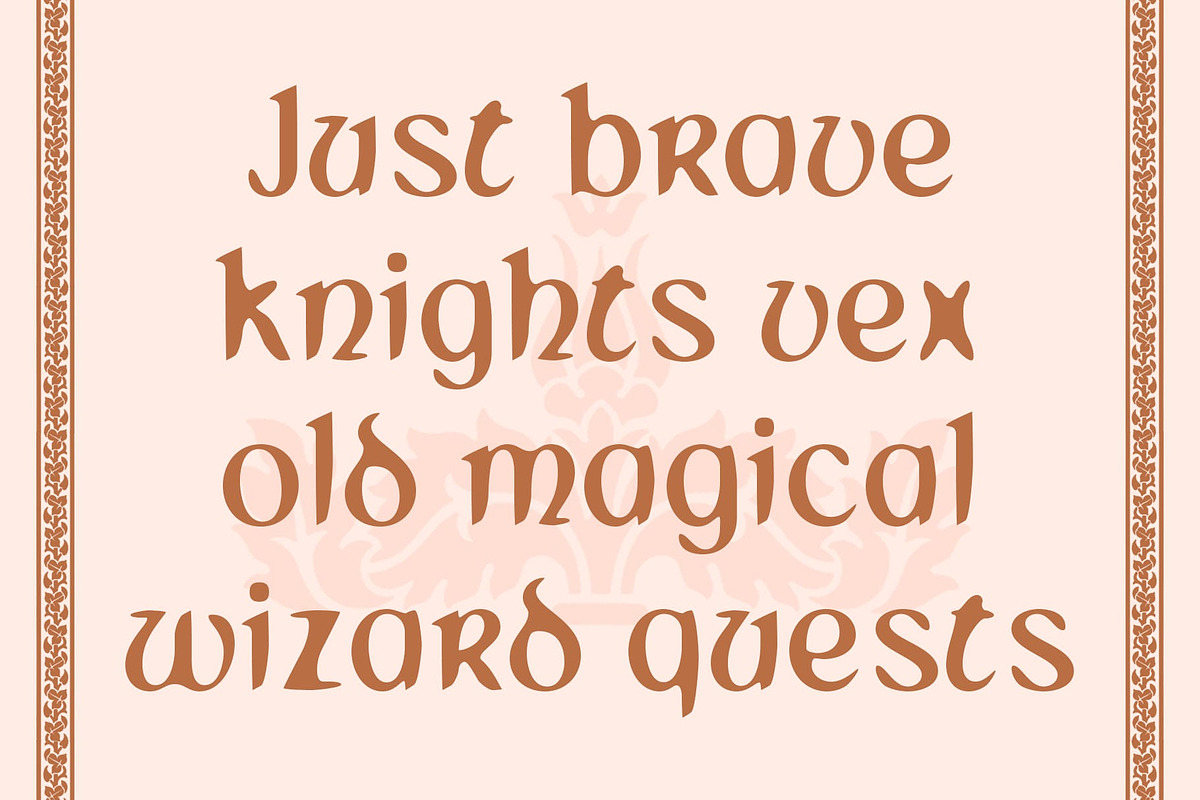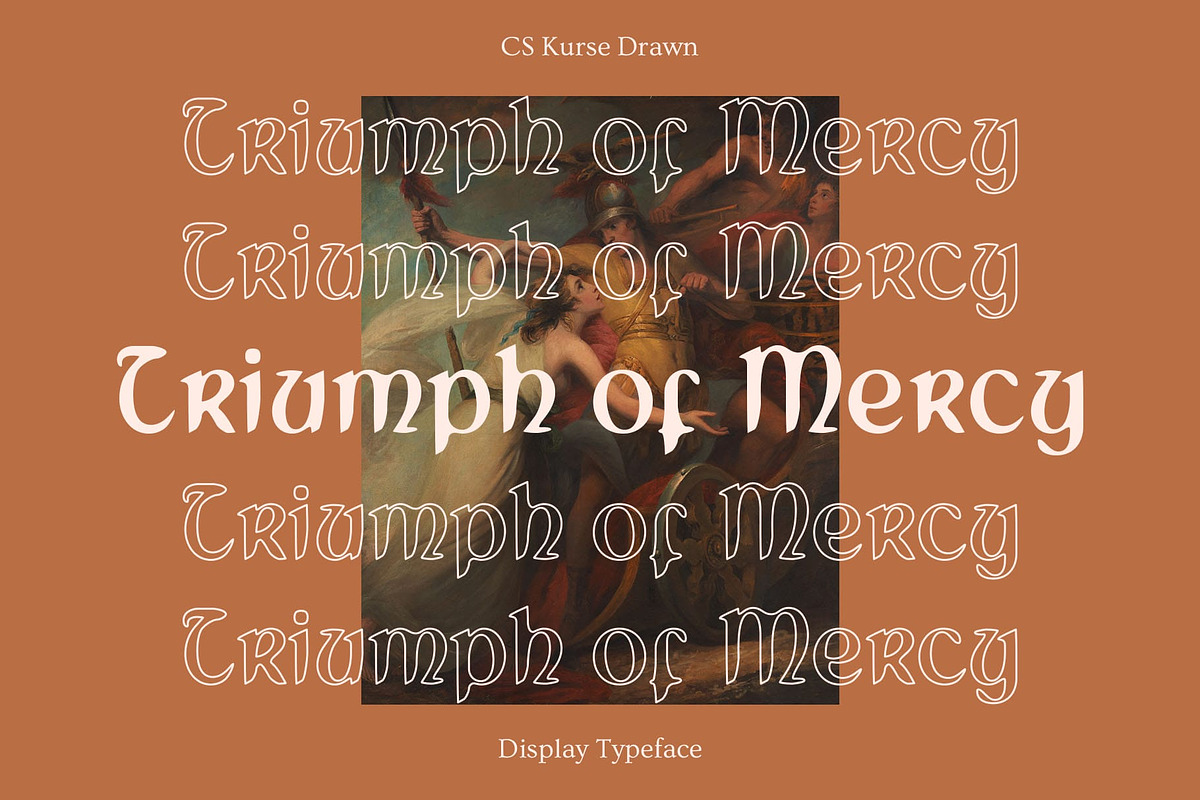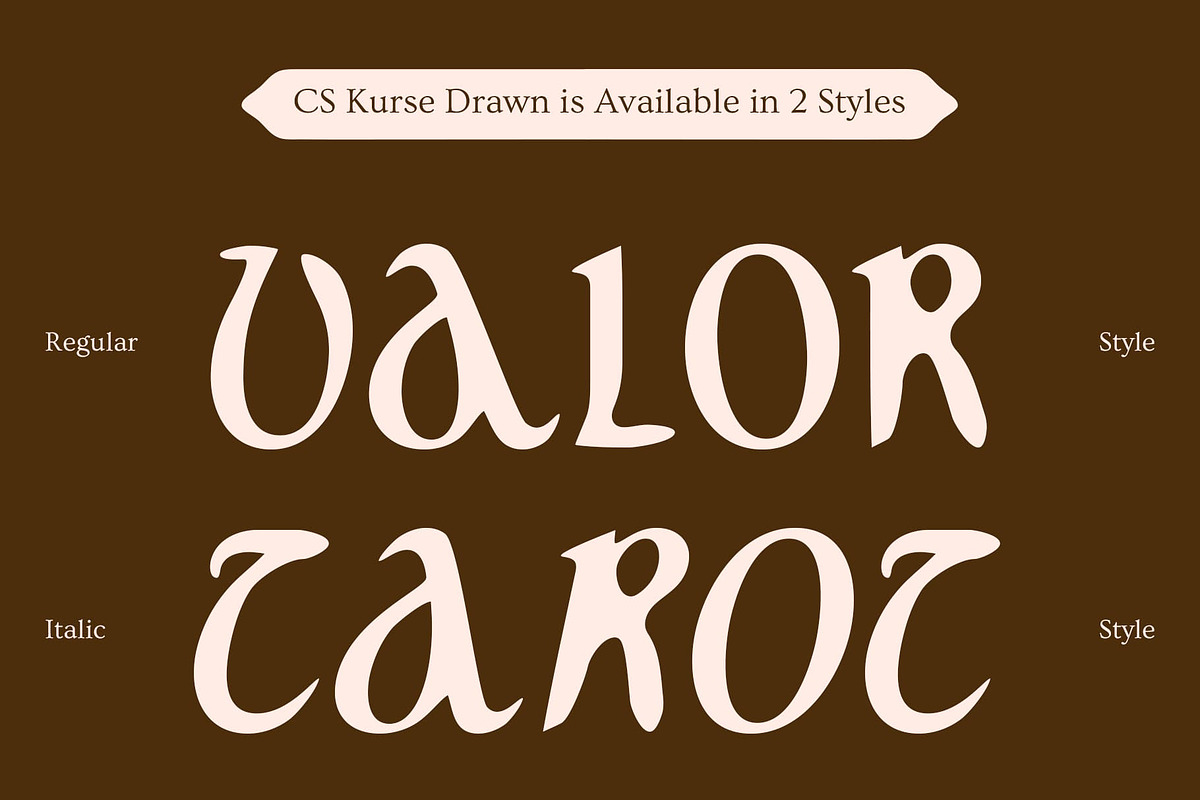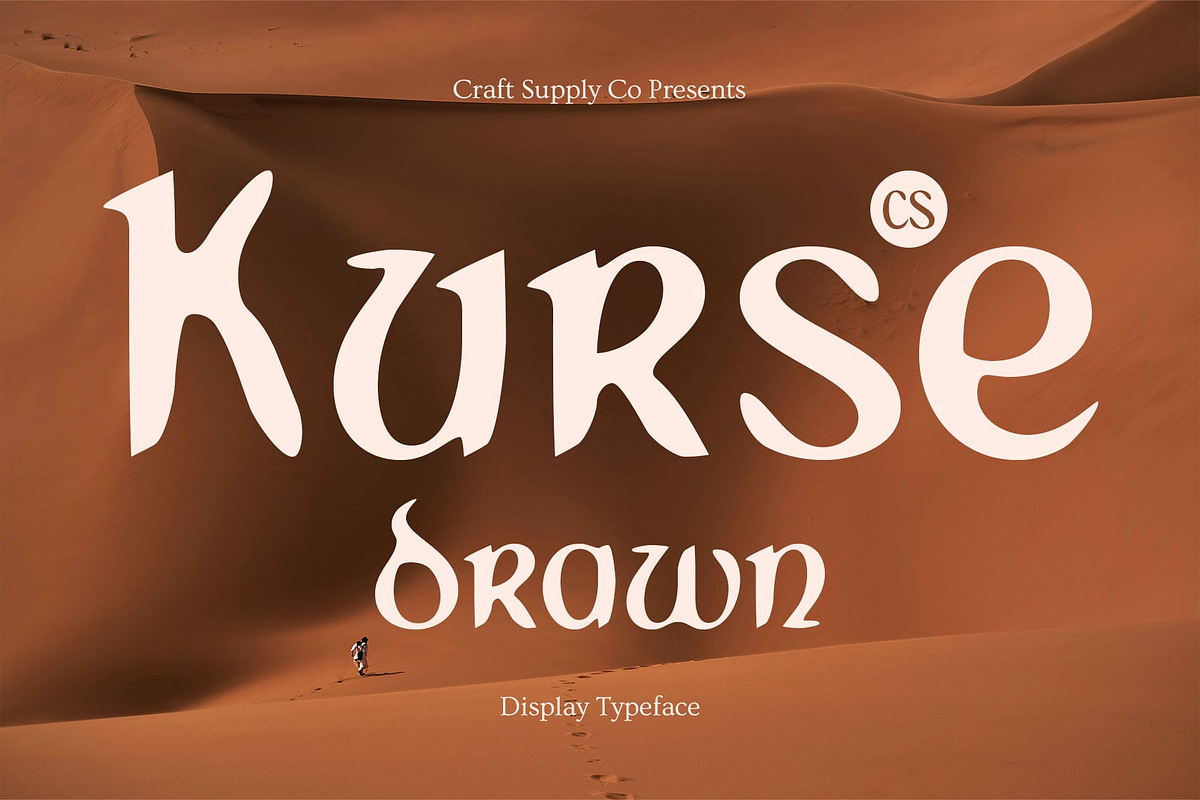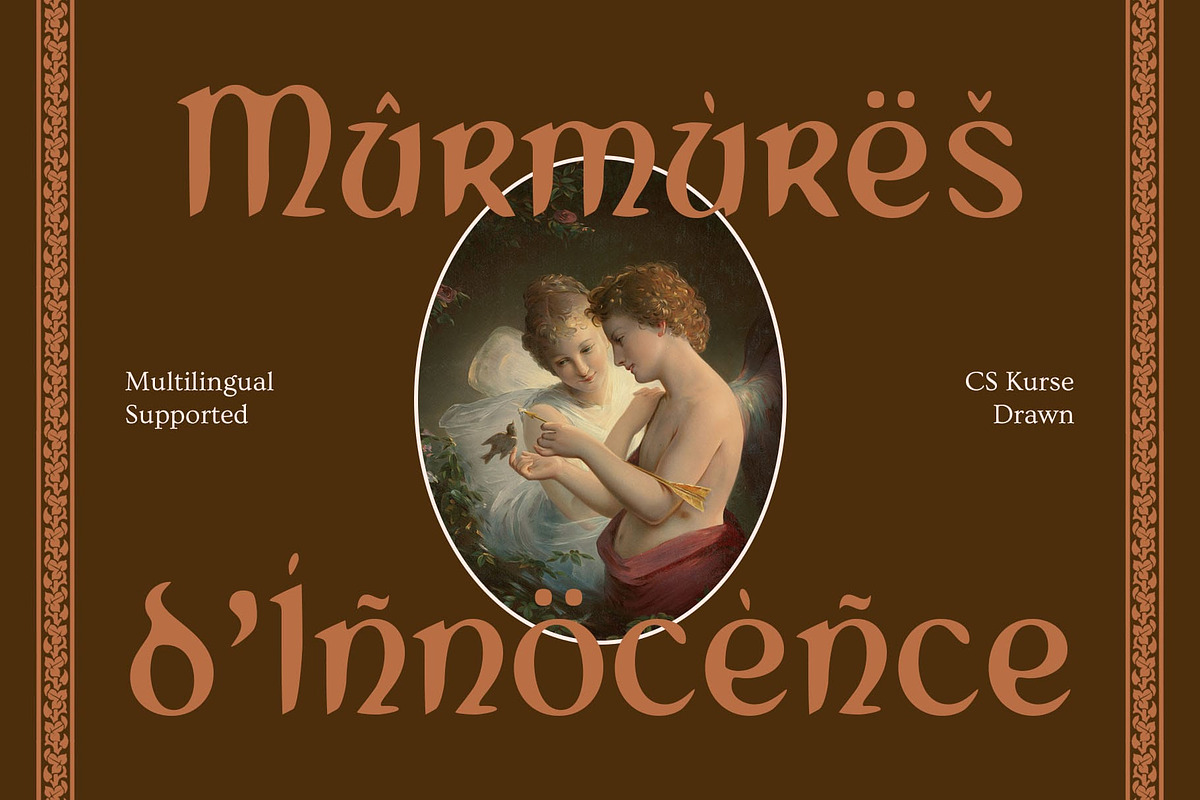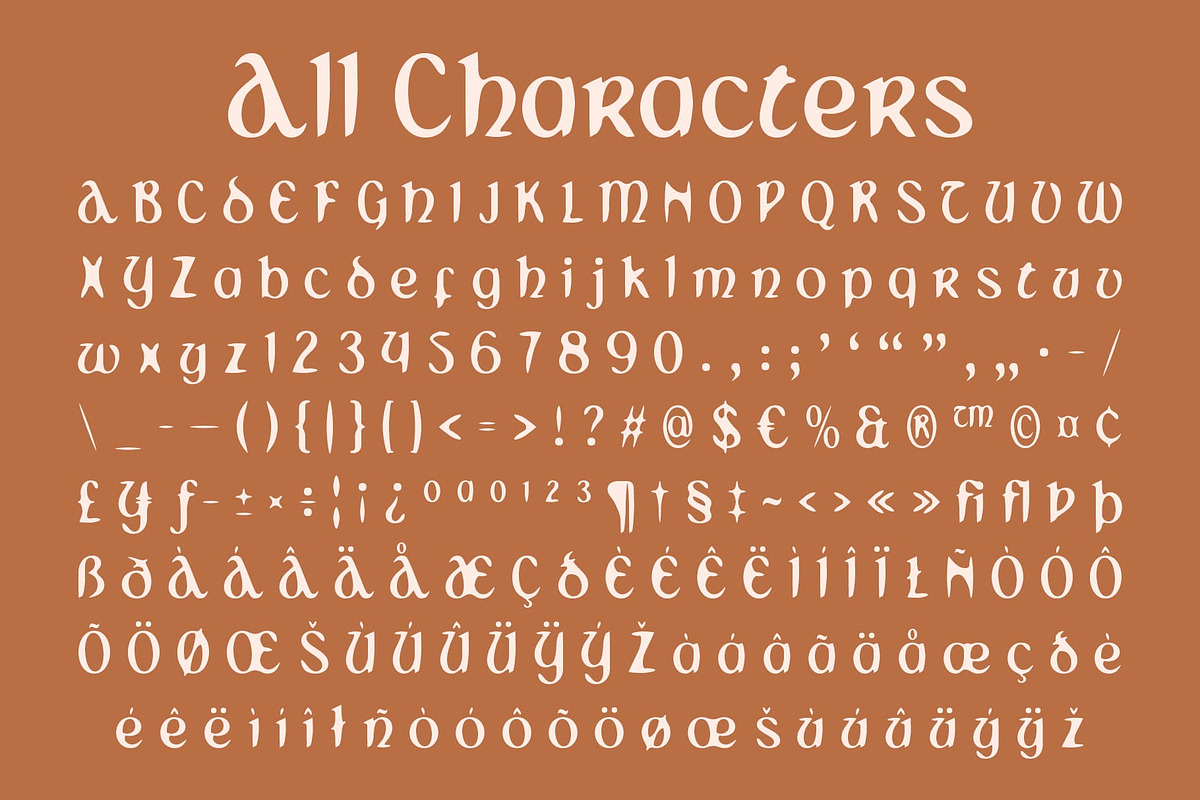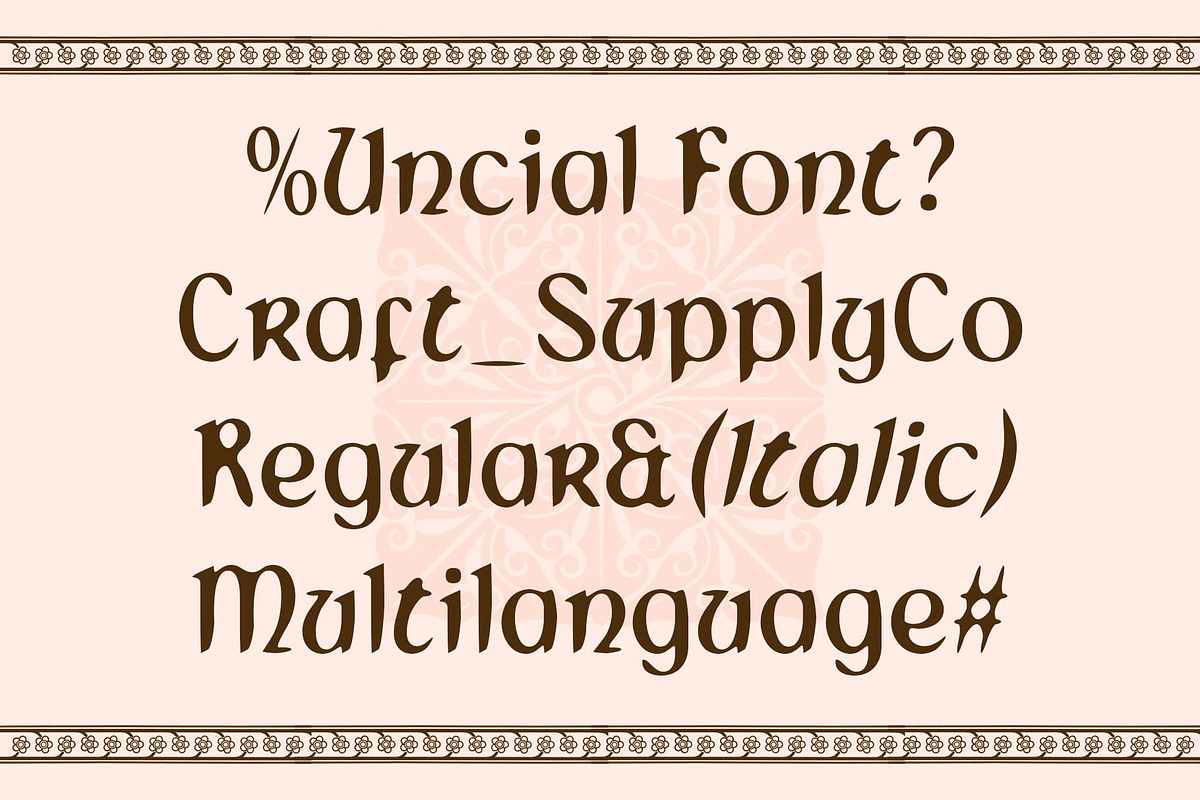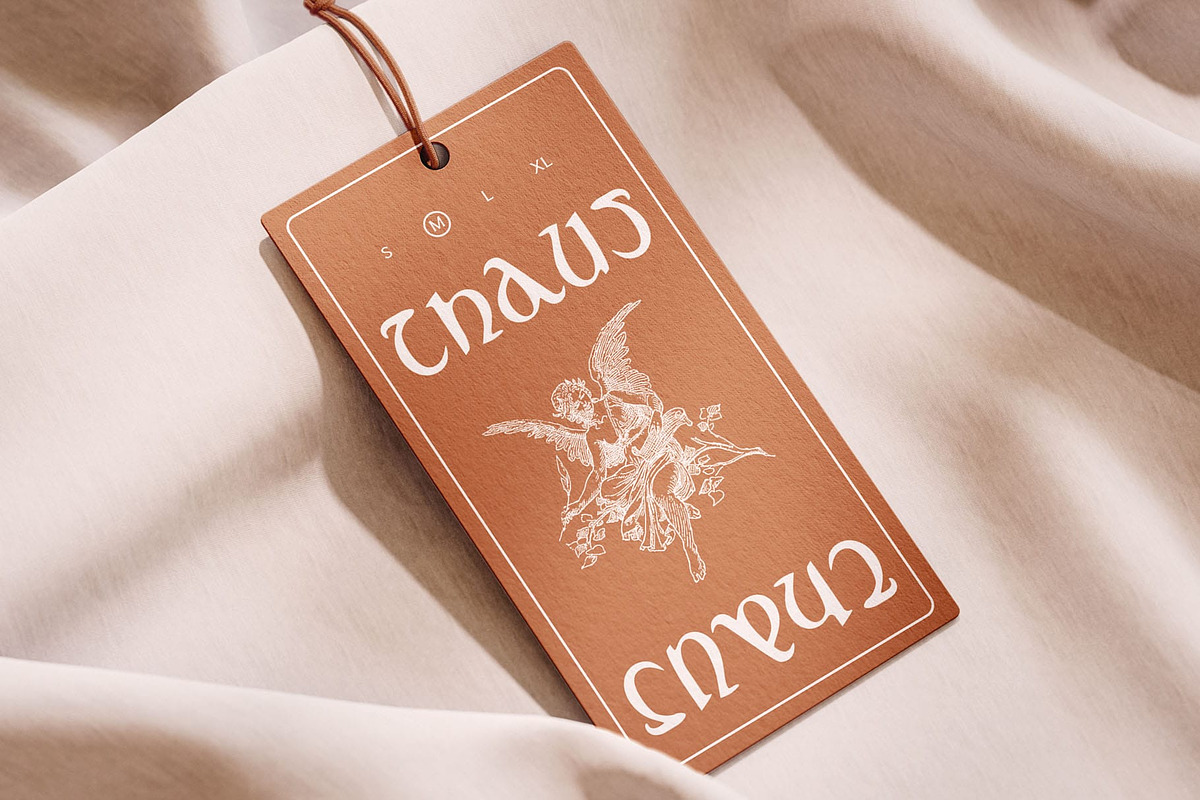
CS Kurse Drawn
CS Kurse Drawn – Mystical Uncial Display Font with a Hand-Drawn Edge
Ancient Forms with a Handcrafted Soul CS Kurse Drawn is a display font rooted in uncial tradition, featuring rounded, historic letterforms inspired by ancient Latin scripts. Its form evokes the mysticism of medieval manuscripts, while the drawn texture brings an organic, expressive quality, as if penned by hand with a brush or quill on aged parchment.
Medieval Charm Meets Artistic Flair The hand-drawn effect enhances the font’s visual richness—introducing subtle irregularities and textures that reinforce its folk, fantasy, and magical atmosphere. This blend of historic reverence and artistic spontaneity makes this historical font feel both timeless and personal.
Perfect for Fantasy and Folklore Design This artistic font is ideal for projects that aim to tell a story or evoke legend. Use it in book titles, role-playing game assets, mythological branding, or exhibition posters related to history, fantasy, or ancient cultures. Its expressive and evocative forms draw viewers into a world of enchantment and tradition.
A Typeface That Tells Stories Whether you’re working on a storybook, fantasy zine, or cultural project, this eccentric font offers a visual language that feels authentic, handcrafted, and filled with history—perfect for adding a sense of depth, mystique, and character to your design.